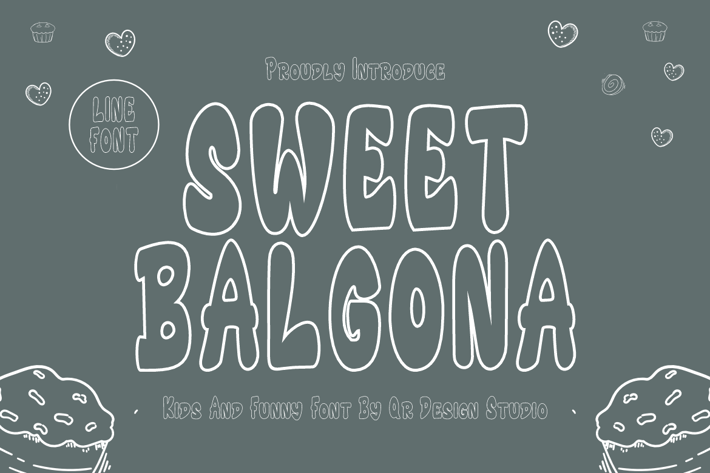
Sweet Balgona - Outline Font
Sweet Balgona - Bubble Line Font is a bold and authentic display font.
The font is suitable for any branding project like kids, poster, cute, food, logo, and many more.